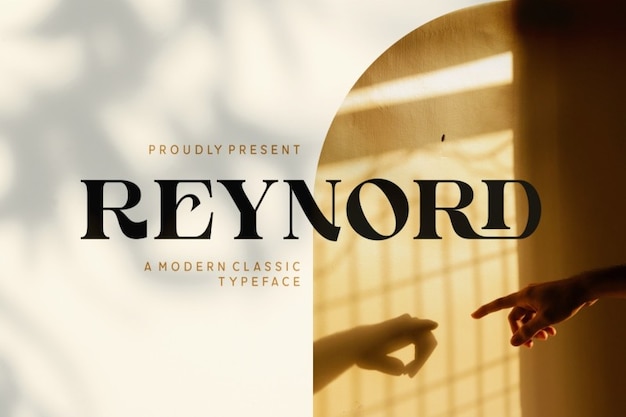
Reynord Font
It's a fusion of modern and classic elegance! Picture sophistication with a timeless twist—each letter dripping with fancy flair. It's like your grandma's classic china set meets sleek, contemporary lines. Perfect for designs seeking that blend of refined and trendy, this font is the epitome of modern-classic charm.